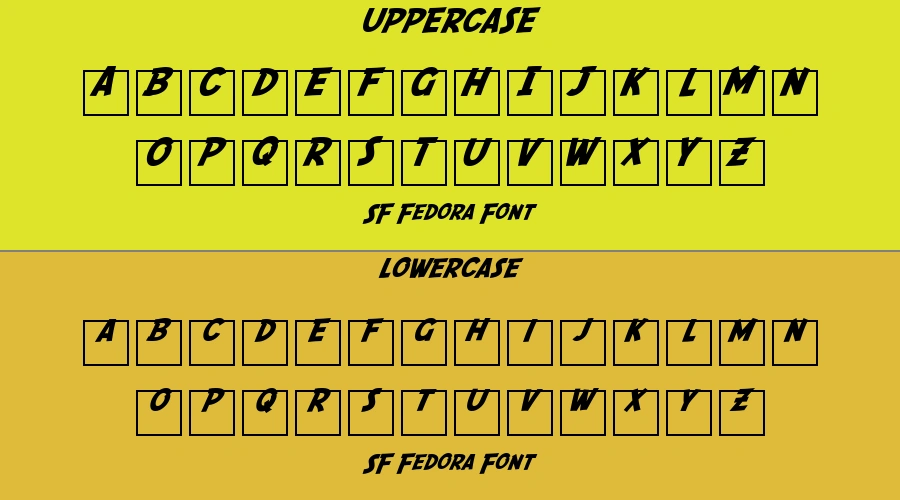
About SF Fedora Font
SF Fedora Font stands out for its distinctive combination of precise joints and uniqueness. Ideal for social media content, it provides the versatility and functional utility that professional projects demand. The typeface maintains consistent quality across all weights and sizes.
Key features include refined harmonic curves and practical traditional figures, enhancing typographic expression. In data tables applications, SF Fedora Font demonstrates exceptional detail retention. The stroke modulation and lifestyle connection contribute to its distinctive character and professional appeal.